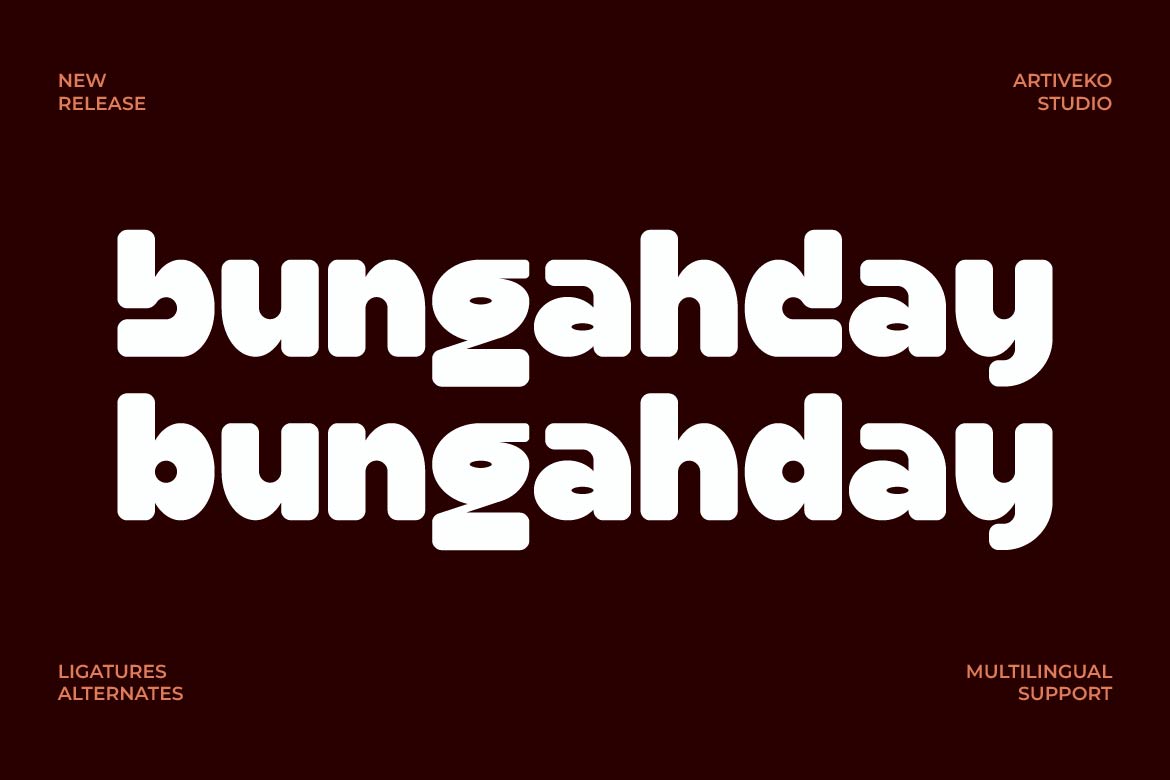
- Bungahday – Bold Rounded Display Font
Bungahday is a bold, rounded display font packed with playful, bubble-like personality. Its thick, chunky letterforms and smooth curves give every word a friendly, confident presence that’s impossible to overlook.
The typeface includes both a regular and an alternate style, giving you flexibility to switch between a cleaner look and a more expressive one with swapped letterforms. Ligatures and stylistic alternates are built in, along with multilingual support for accented Latin characters, making Bungahday easy to adapt across different languages and layouts.
Bungahday works especially well for logos, branding, packaging, apparel graphics, social media graphics, posters, and any project that calls for a fun, energetic voice. Its bold, rounded shapes hold up beautifully at large sizes, making it a strong choice for headlines, wordmarks, and short punchy phrases where personality needs to shine through.
Friendly, bold, and full of character — Bungahday brings warmth and playfulness to any design that wants to stand out.
Bungahday — a bold rounded display font built for fun, confident typography.